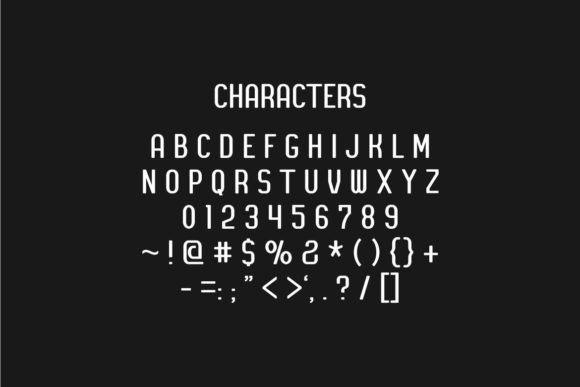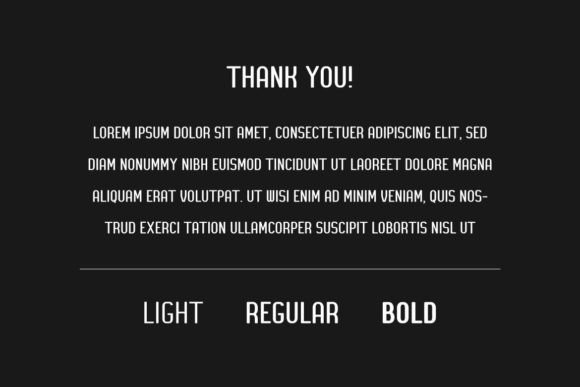
Introducing Caredo Font: The Epitome of Minimalist Elegance
In the realm of typography, fonts play a pivotal role in conveying messages, evoking emotions, and creating lasting impressions. Among the myriad of fonts available, Caredo Font stands out for its simplicity, professionalism, and versatility. This article delves into the characteristics, applications, and benefits of using Caredo Font in various design projects.
The Essence of Caredo Font
Caredo Font is characterized by its minimalist style, which lends a professional look to any design project. Its simplicity is not just aesthetically pleasing but also highly functional, making it suitable for a wide range of applications. Whether you’re working on a magazine title, headline, newspaper article, office document, poster, book cover, logo, or banner, Caredo Font is an excellent choice.
Key Features of Caredo Font
- All Capital Style: Caredo Font features an all-capital style, which gives it a commanding presence and makes it highly legible, even at smaller sizes.
- Minimalist Design: The font’s clean lines and uncluttered design make it perfect for creating a professional look in any project.
- Versatility: Caredo Font’s neutral and elegant design allows it to seamlessly blend into various contexts, from formal documents to creative artworks.
Applications of Caredo Font
Caredo Font’s adaptability makes it a valuable asset for designers and crafters working on diverse projects. Here are some of the areas where Caredo Font excels:
- Magazine and Newspaper Titles: Add a touch of sophistication and professionalism to your publication’s title with Caredo Font.
- Headlines and Posters: Grab attention with Caredo Font’s bold and clear lettering, ideal for headlines, posters, and advertising materials.
- Office Work and Documents: Enhance the visual appeal of reports, presentations, and other office documents with Caredo Font’s clean and professional look.
- Book Covers and Logos: Create a lasting impression with Caredo Font’s elegant and minimalist style, suitable for book covers, logos, and branding materials.
- Banners and Large-Scale Artwork: Caredo Font’s simplicity and legibility make it an excellent choice for large-scale artwork and banners.
Benefits of Using Caredo Font
Choosing Caredo Font for your design projects comes with several benefits:
- Enhanced Readability: Caredo Font’s clear and simple design ensures that your message is conveyed effectively, regardless of the medium.
- Professional Aesthetic: The font’s minimalist style lends a professional and sophisticated look to your designs.
- Versatility: Caredo Font’s adaptability allows you to use it across various projects, making it a valuable addition to your typography arsenal.
- Time Efficiency: With Caredo Font, you can quickly create visually appealing designs without compromising on quality or legibility.
Caredo Font is a versatile and elegant typeface that brings a professional touch to any design project. Its minimalist style, all-capital design, and adaptability make it an excellent choice for designers and crafters looking to create visually appealing and effective designs. Whether you’re working on a magazine title, office document, or large-scale artwork, Caredo Font is sure to meet your typography needs.
Explore the possibilities of Caredo Font and elevate your design projects with its simplicity, elegance, and professionalism.